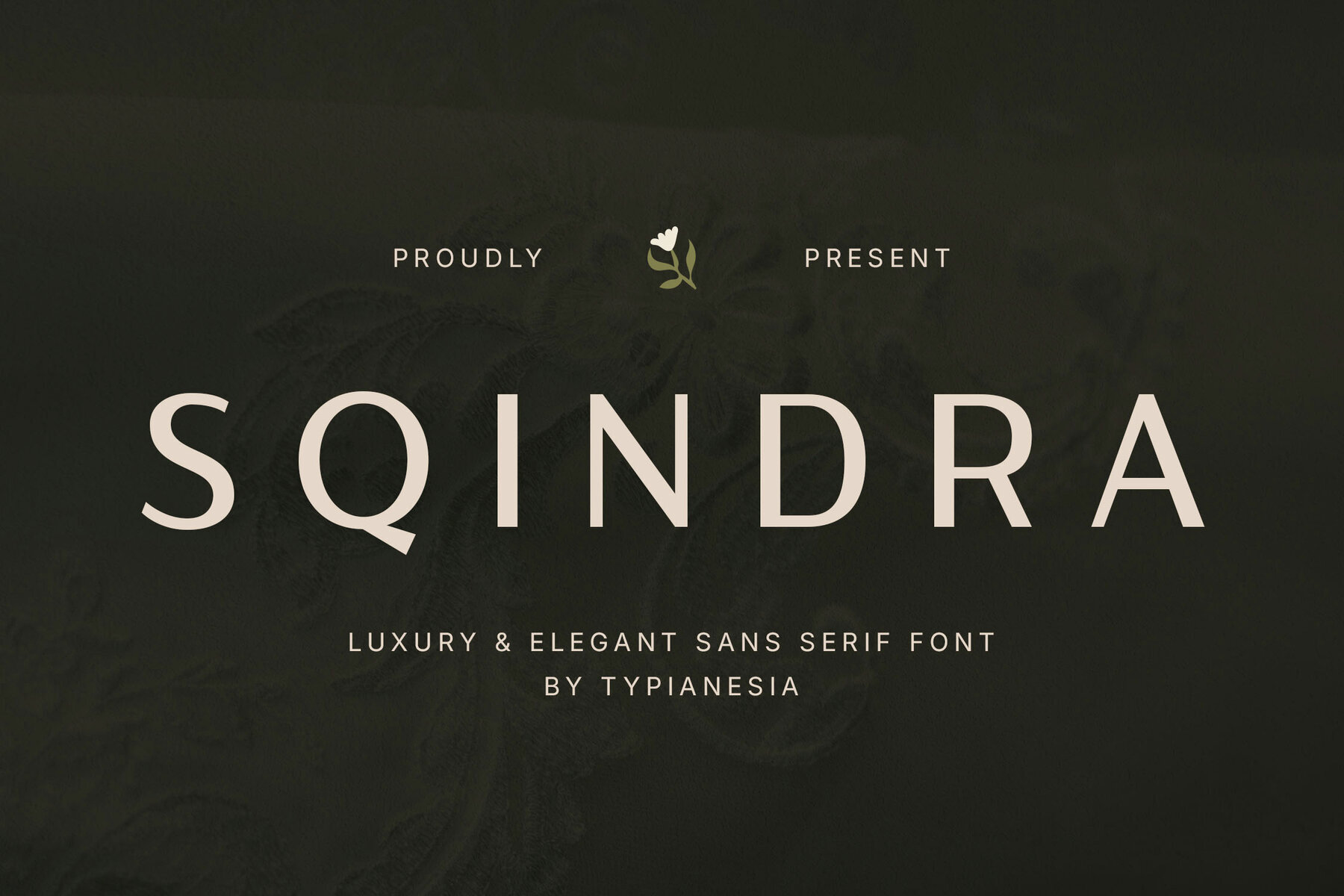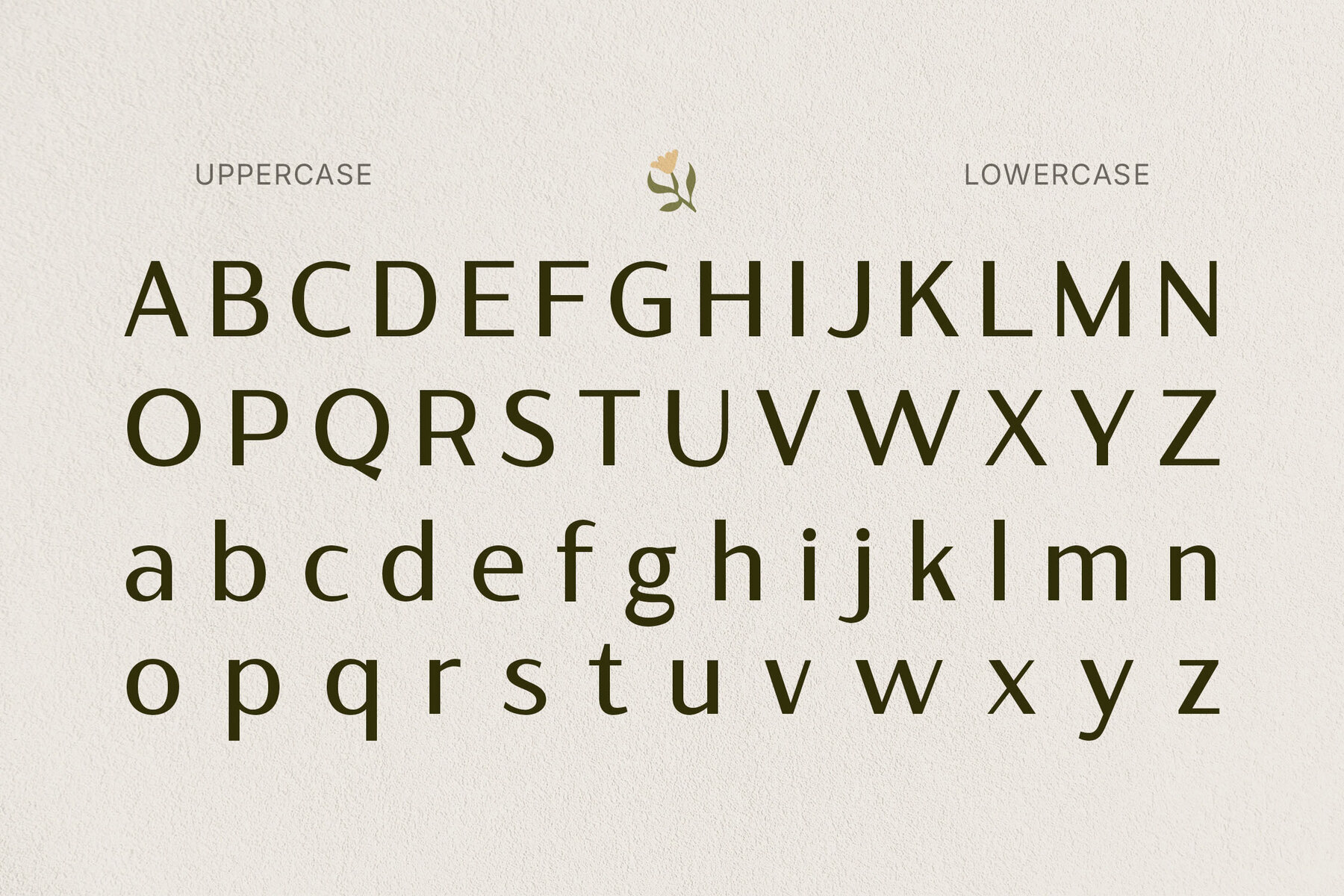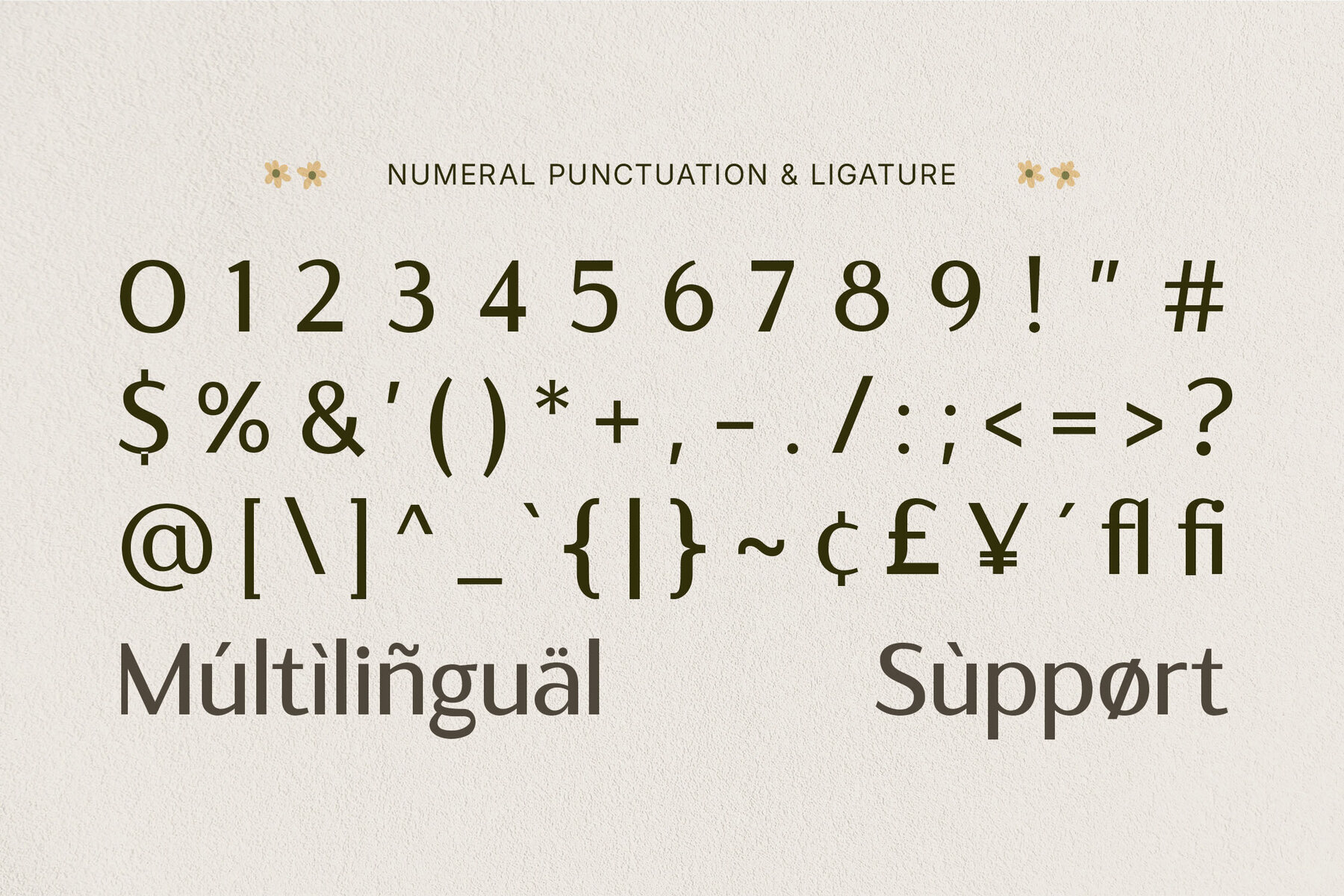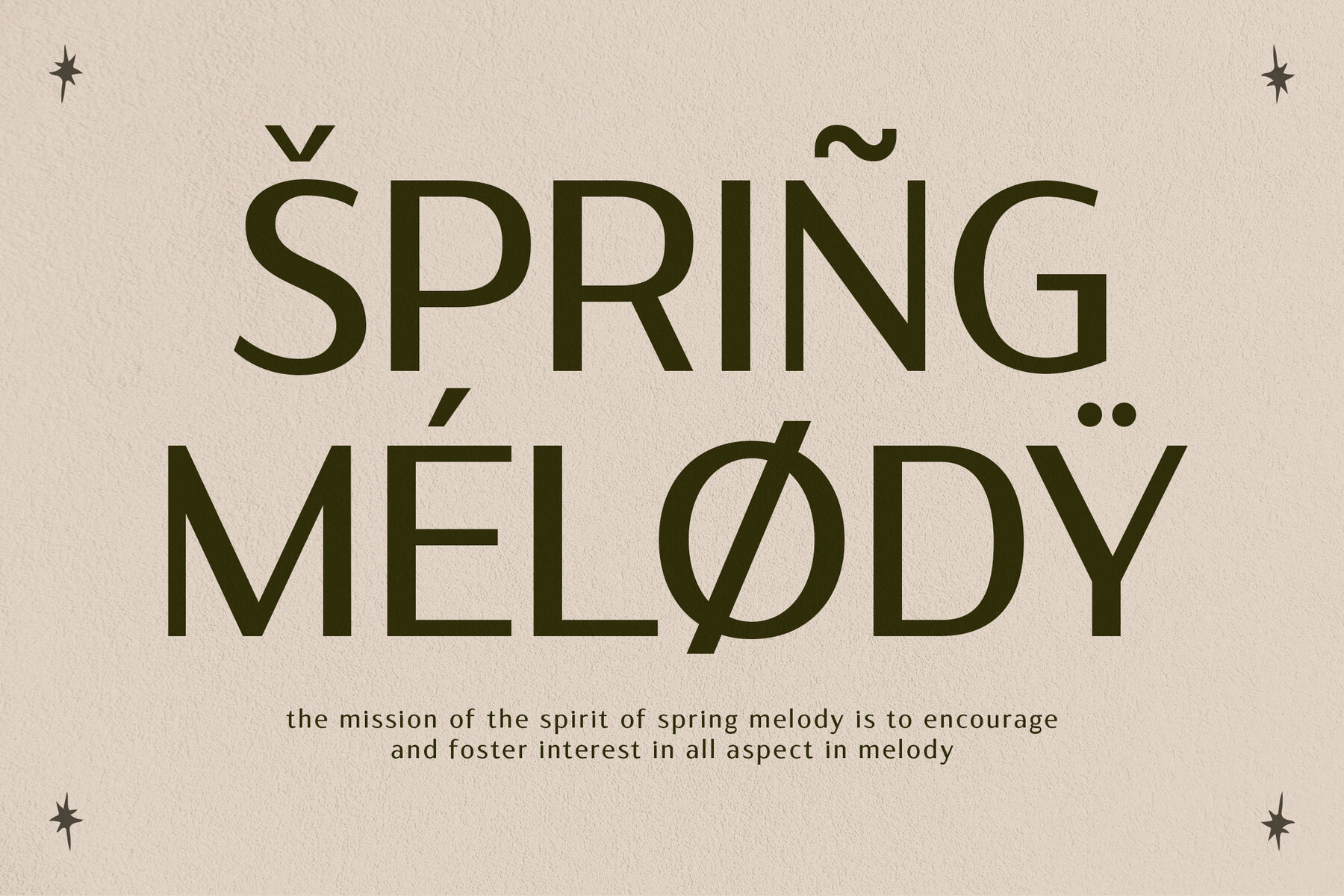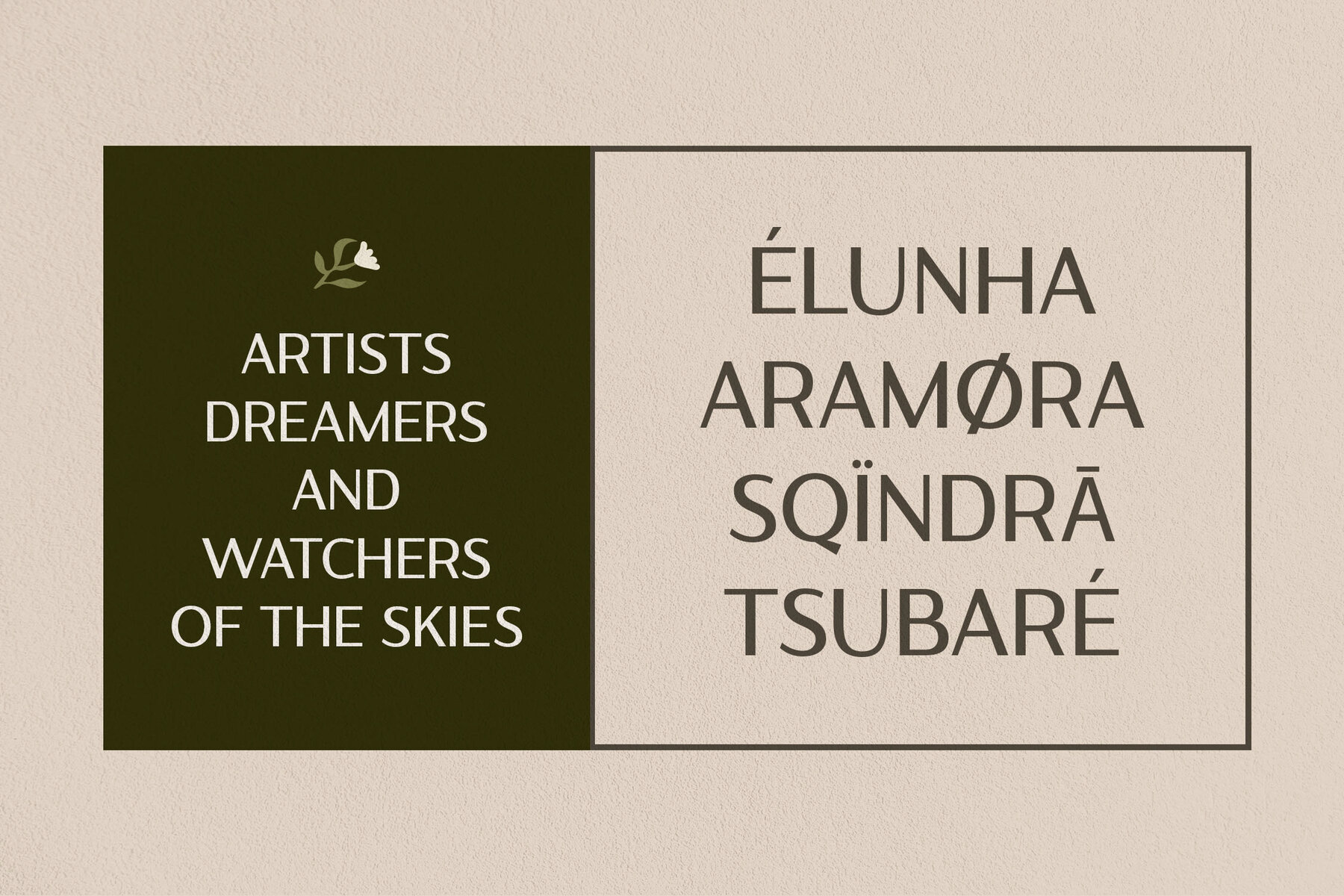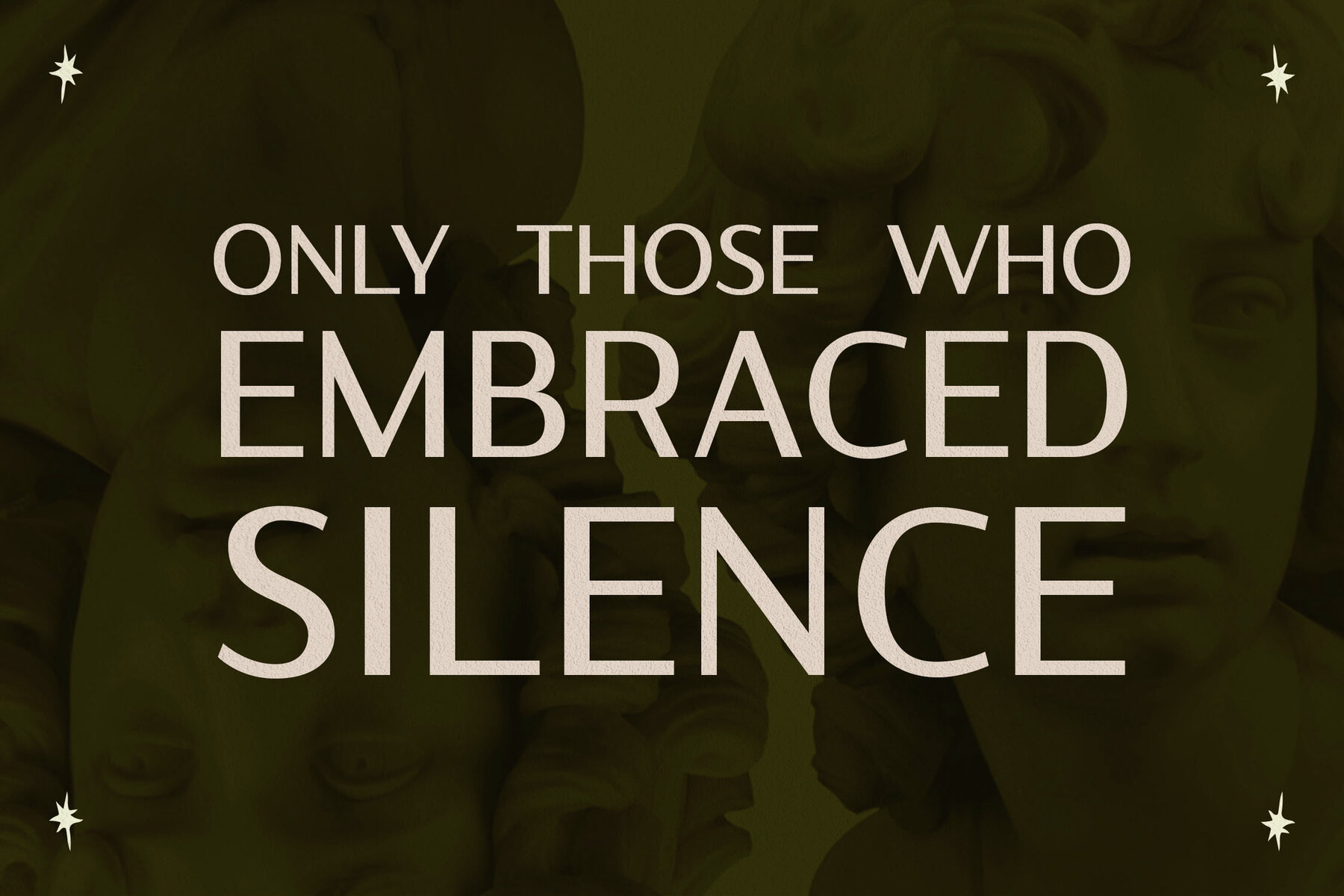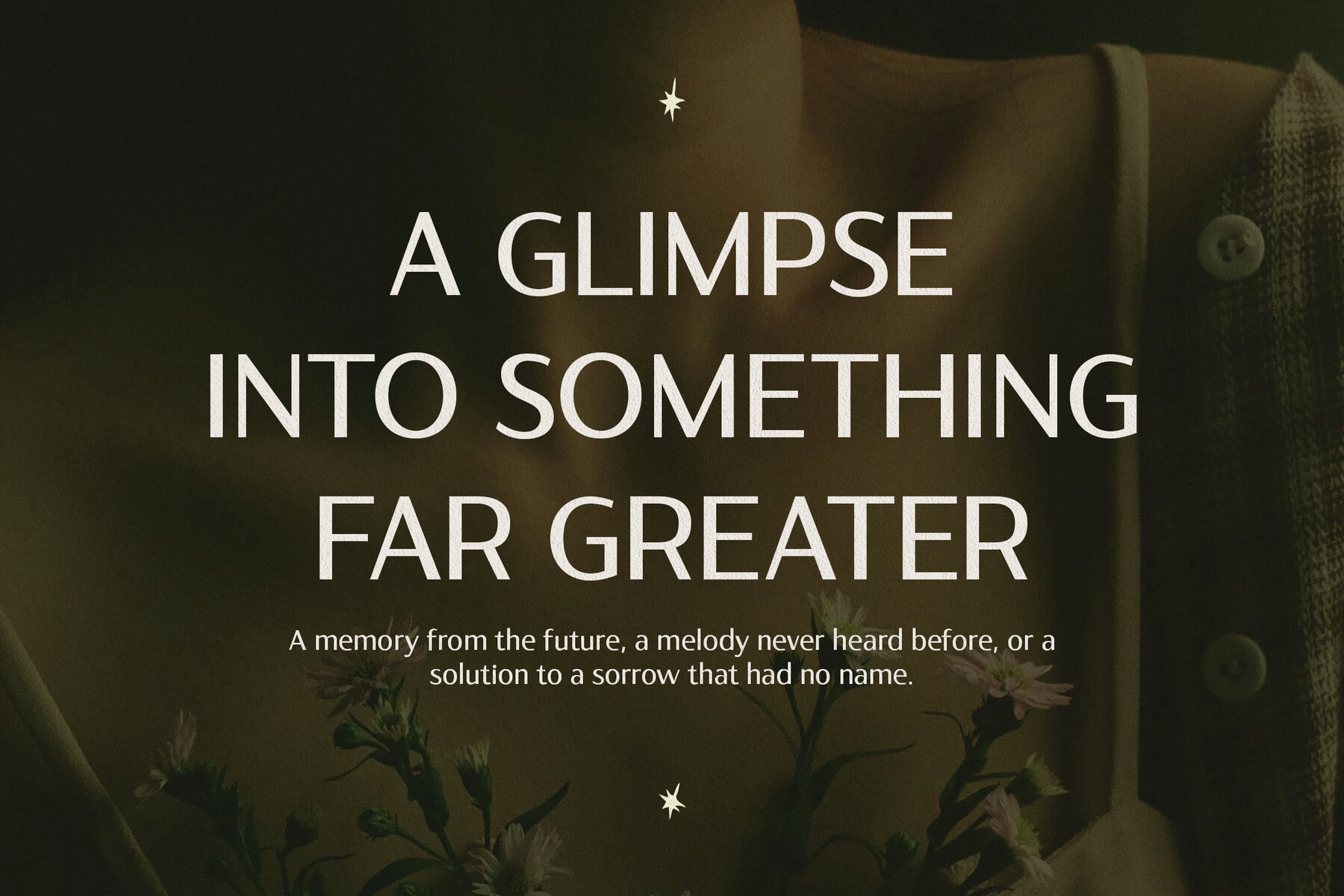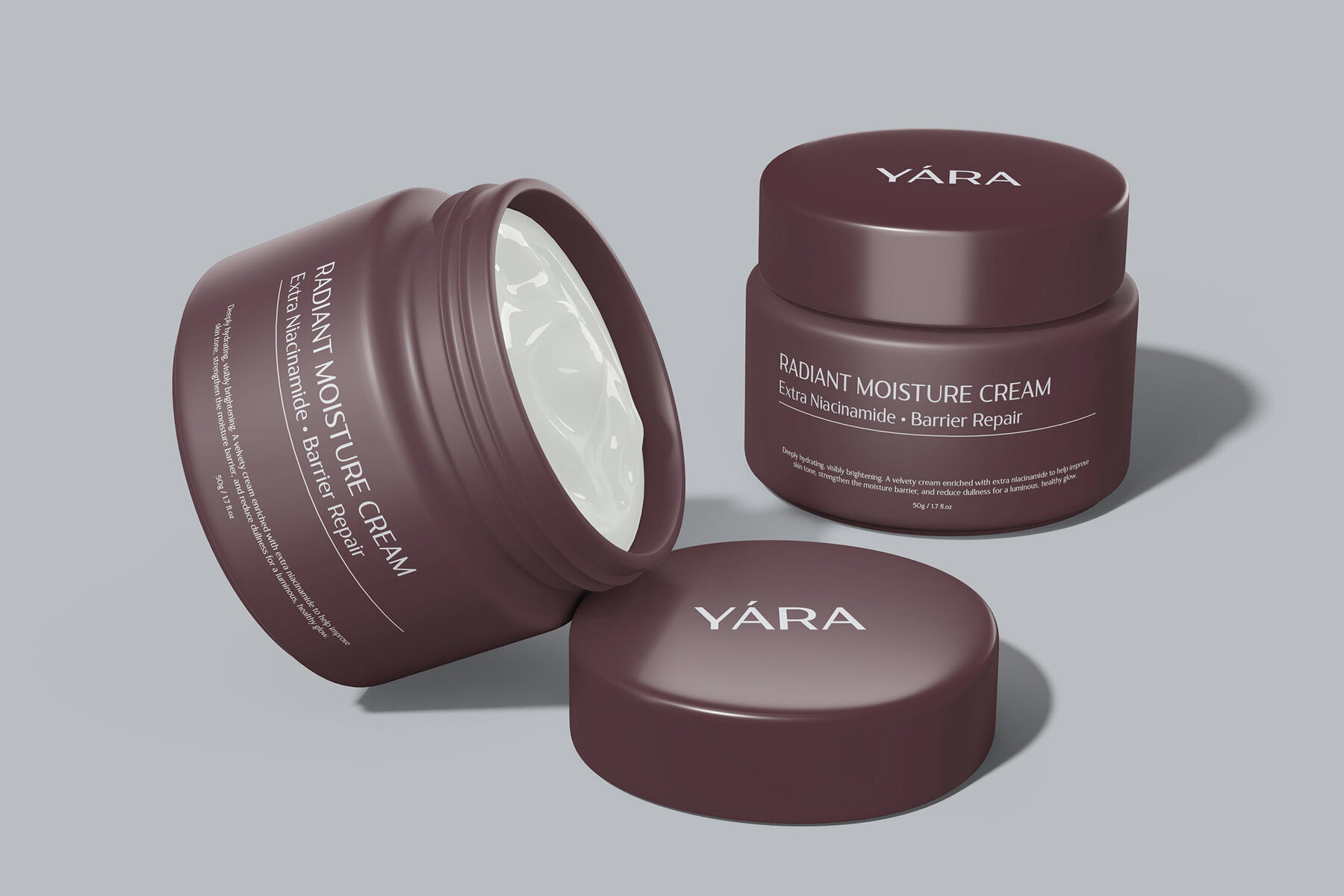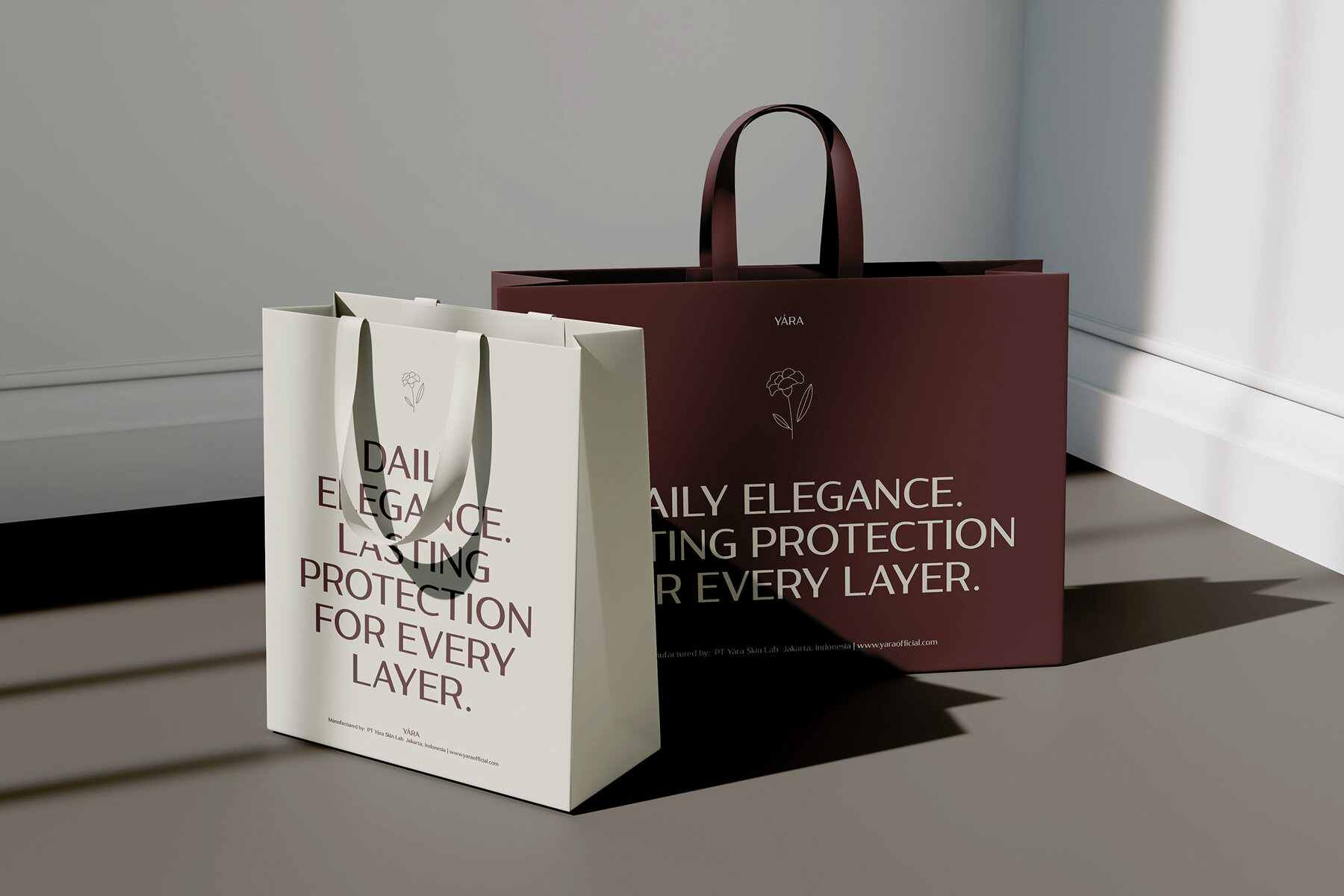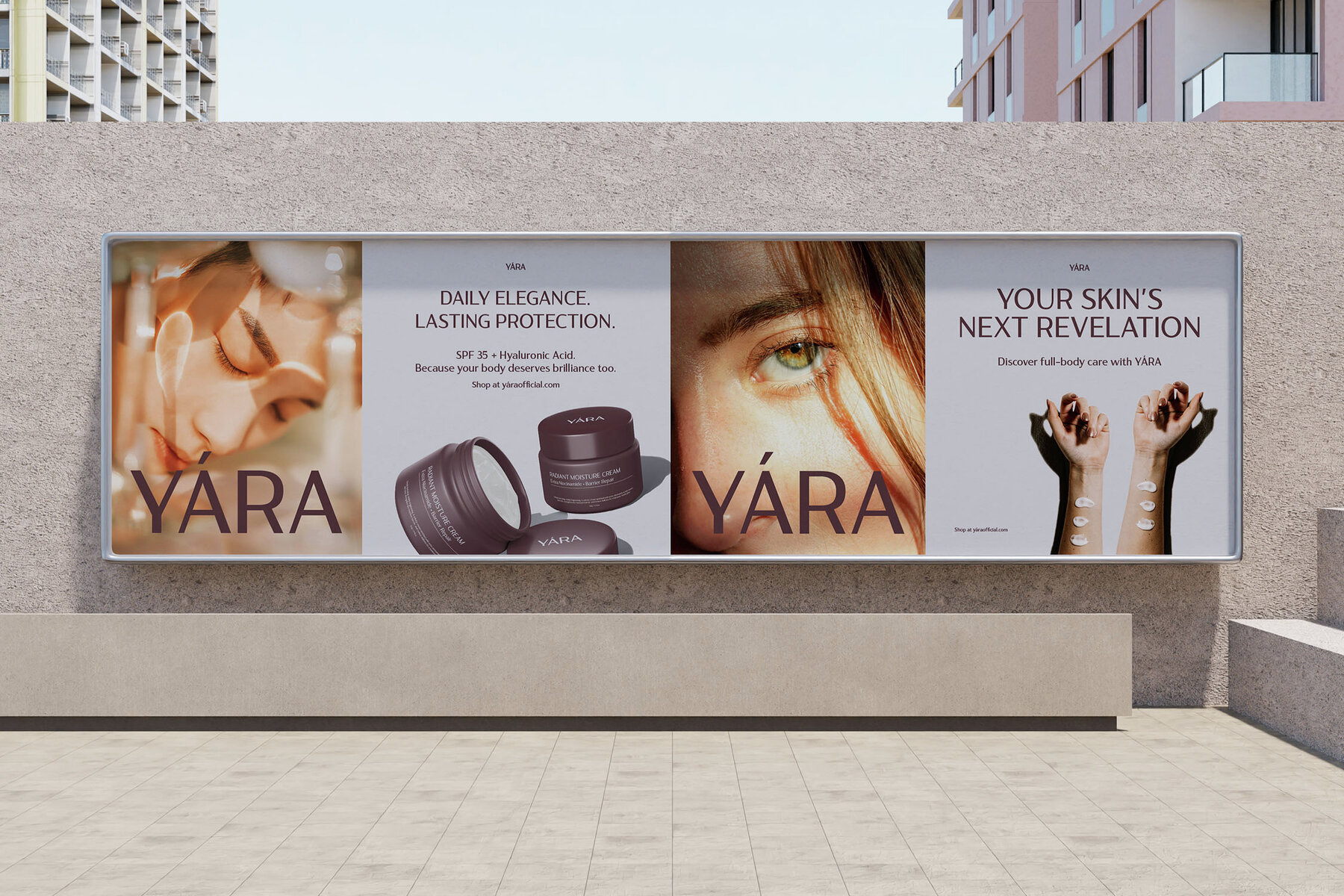
Sqindra Font
Sqindra Regular
Sqindra is a luxury sans serif font that marries elegance with a minimalist design, perfect for modern beauty and high-end branding. Each letterform is crafted with precision, making it an excellent choice for projects that require a touch of class and clear communication.Sqindra: A Minimalist Approach to Elegance